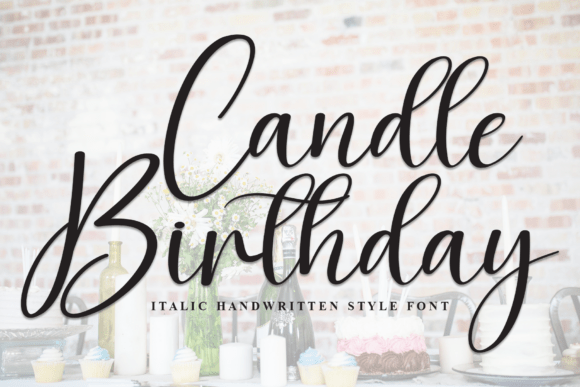
Candle Birthday Font: Elevate Your Designs with Elegance and Charm
The Candle Birthday Font is a stunning handwritten script font that has captured the hearts of designers and crafty enthusiasts alike. With its fluid, graceful strokes, this beautiful font exudes elegance and charm, making it perfect for a wide range of design applications. Whether you’re working on branding, invitations, stationery, or any other project that requires a touch of sophistication, the Candle Birthday Font is an excellent choice.
The Characteristics of Candle Birthday Font
The Candle Birthday Font boasts smooth curves and a natural flow that creates a timeless, refined look for any design. Its elegant strokes are carefully crafted to convey a sense of luxury and poise, making it ideal for designs that require a high level of sophistication. The font’s fluidity and gracefulness also make it perfect for creating beautiful, flowing text that is easy to read and visually appealing.
Key Features of Candle Birthday Font
- Handwritten Script Font: The Candle Birthday Font is a beautiful handwritten script font that adds a personal touch to any design.
- Elegant Strokes: The font features fluid, graceful strokes that exude elegance and charm.
- Smooth Curves: The smooth curves and natural flow of the font create a timeless, refined look for any design.
- Perfect for Branding: The Candle Birthday Font is perfect for branding, invitations, and stationery, adding a sophisticated touch to any design.
Uses of Candle Birthday Font
The Candle Birthday Font is a versatile font that can be used for a wide range of design applications. Some of the most popular uses of this font include:
Branding and Logo Design
The Candle Birthday Font is perfect for creating elegant and sophisticated brand logos. Its fluid strokes and smooth curves make it ideal for creating a logo that exudes luxury and poise.
Invitations and Stationery
The font is also perfect for creating beautiful invitations and stationery. Its elegant strokes and refined look make it ideal for formal events, such as weddings and birthday parties.
Digital and Print Design
The Candle Birthday Font can be used for both digital and print design. Its clear and readable strokes make it perfect for creating digital content, such as blog posts and social media graphics, while its elegant look makes it ideal for print materials, such as brochures and flyers.
Why Choose Candle Birthday Font?
There are many reasons why you should choose the Candle Birthday Font for your next design project. Here are just a few:
Elegance and Charm
The Candle Birthday Font exudes elegance and charm, making it perfect for designs that require a touch of sophistication.
Versatility
The font is versatile and can be used for a wide range of design applications, from branding and logo design to invitations and stationery.
Easy to Read
The font’s smooth curves and natural flow make it easy to read, even at small sizes.
Tips for Using Candle Birthday Font
Here are a few tips for using the Candle Birthday Font:
Use it Sparingly
Because of its elegant and sophisticated look, it’s best to use the Candle Birthday Font sparingly. Use it for headings or titles, and pair it with a simpler font for body text.
Experiment with Colors
The Candle Birthday Font looks great in a variety of colors. Experiment with different colors to find the one that works best for your design.
Pair it with Other Fonts
The Candle Birthday Font can be paired with other fonts to create a unique and interesting look. Try pairing it with a bold font for a striking contrast.
The Candle Birthday Font is a beautiful and elegant handwritten script font that is perfect for a wide range of design applications. Its fluid strokes, smooth curves, and natural flow make it ideal for creating sophisticated and refined designs. Whether you’re working on branding, invitations, stationery, or any other project that requires a touch of elegance, the Candle Birthday Font is an excellent choice.